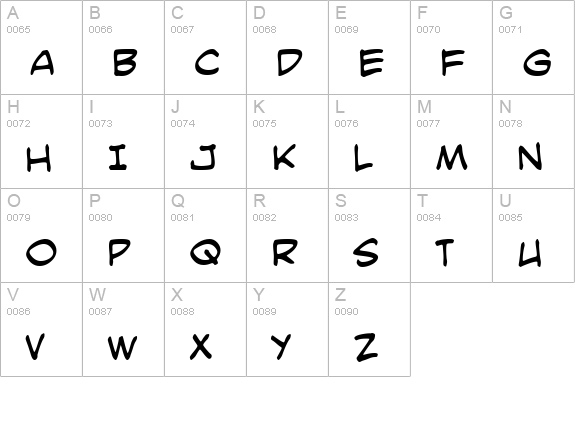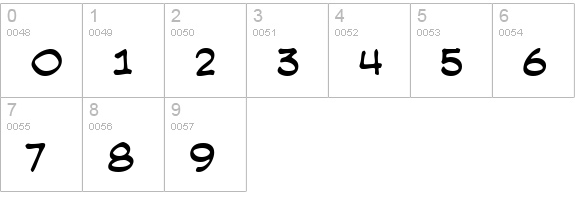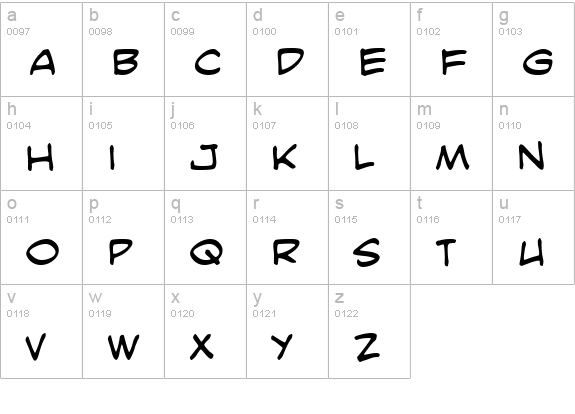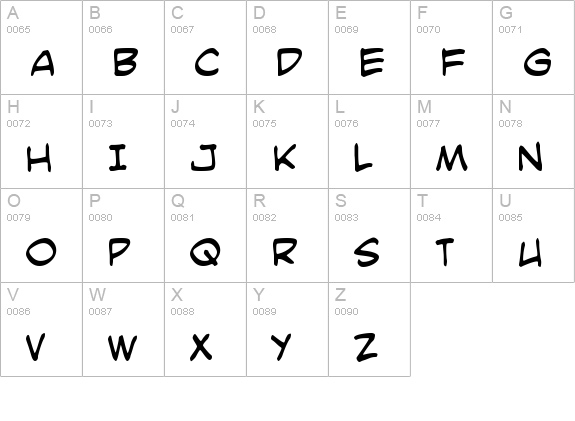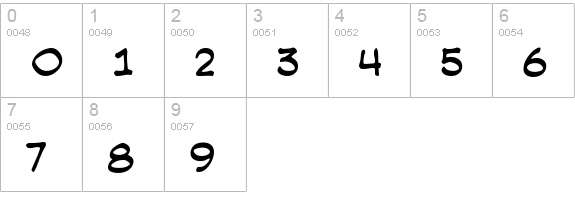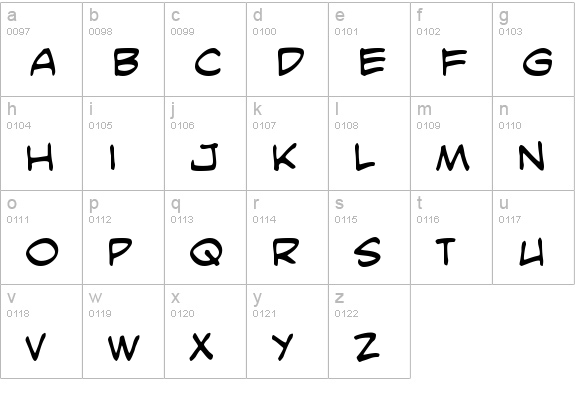
SmackAttack BB Font Details
Introducing the dynamic and eye-catching SmackAttack BB font, a modern display typeface that is sure to make your designs stand out! This bold and energetic font is perfect for headlines, posters, logos, and more. With its striking appearance and unique letterforms, SmackAttack BB is designed to grab attention and leave a lasting impression. The best part? SmackAttack BB is available for free download at FontsMarket.com, making it easily accessible for all your creative projects. Whether you're a graphic designer, artist, or just looking to add a touch of flair to your work, this versatile font is sure to become a go-to choice. Don't miss out on the opportunity to elevate your designs with the dynamic energy of SmackAttack BB font - download it today and let your creativity soar!